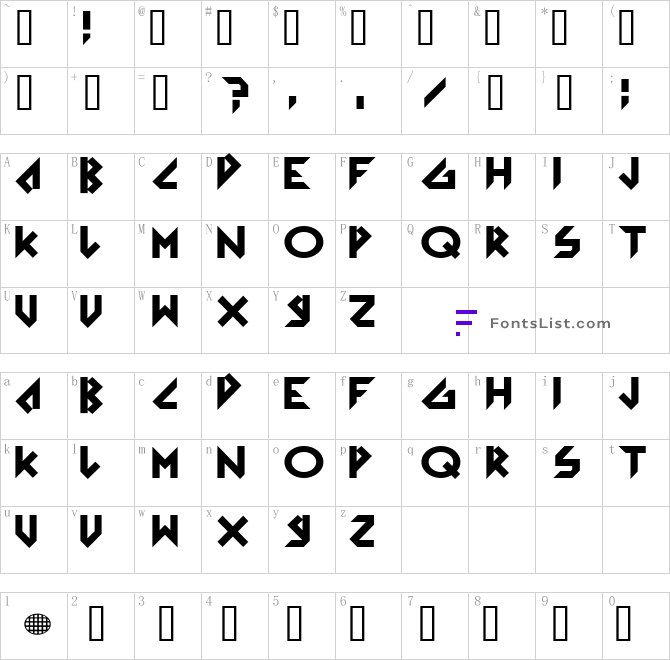
- Font Name:Arkanoid Solid
Arkanoid-Solid.ttf is a very beautiful artistic font, Arkanoid-Solid.ttf is widely used in the design and printing of various books and pictures,Arkanoid-Solid.ttf has a strong visual impact,Arkanoid-Solid.ttf is a commonly used font in newspapers, magazines and books, and is used in posters, e-commerce Poster design, store design, logo design, font design and other fields.Arkanoid-Solid.